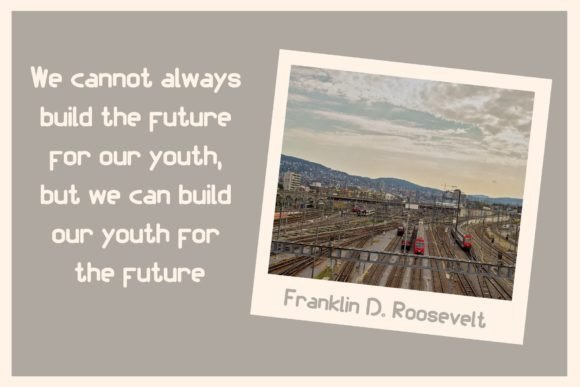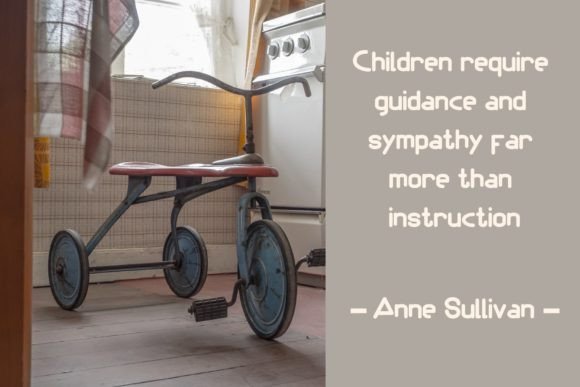
Himenz Font
Himenz is a modern and beautifully rounded display font. It’s great for crafters and designers. Compatible with tools such as Photoshop and Silhouette design studio. Its playfulness can make it great for creative projects.